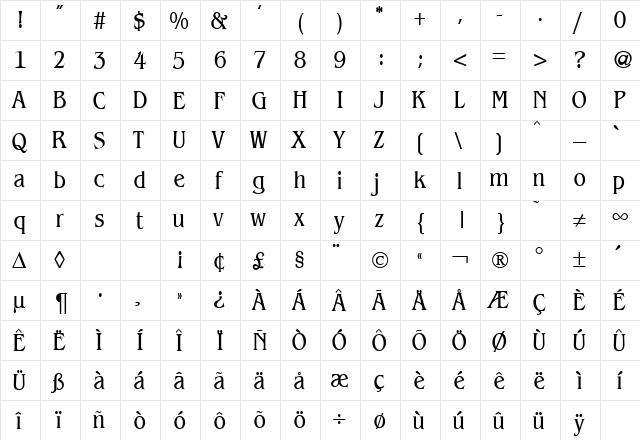
BenjaminCond Regular
Design Context for BenjaminCond Typeface
BenjaminCond offers clean, dependable letterforms without strong stylistic allegiance, making it a practical choice for designers who need flexibility. Its narrow stance lets it pack a punch even in space-constrained designs.
Pro Tip: Use BenjaminCond in both headline and body roles to test its range before committing to a single application.